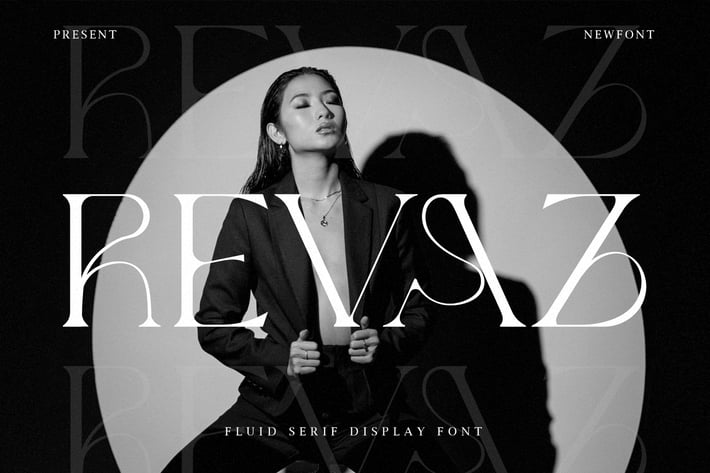
Revaz - Fluid Serif Display Font
Introducing "Revaz" - a fluid serif display font that seamlessly blends elegance with contemporary flair, perfect for adding a sophisticated touch to your designs.
With its graceful serifs and fluid letterforms, "Revaz" offers versatility and dynamism, making it ideal for branding, editorial layouts, packaging, and more.
Embrace the fluidity of "Revaz" as it effortlessly enhances your designs with its refined typography and modern aesthetic.
Step into the world of fluid serif display fonts with "Revaz" and elevate your projects with its seamless elegance.